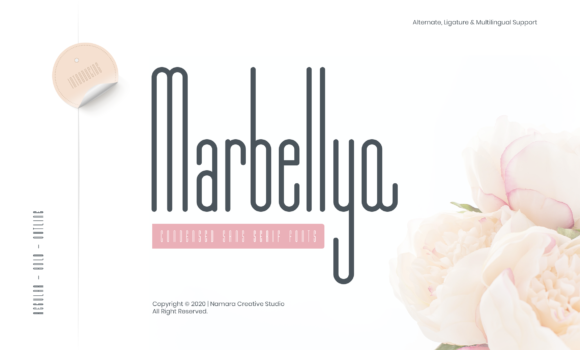
Marbellya Font Fonts Free Download
Marbellya Font – Free Download Introduction to Marbellya Font Marbellya is a simple, yet elegant sans serif font. 📸 Preview Gallery 6 images 📌 Product Name Marbellya Font 👤 Author namaracreativestudio 📂 Category Explore ⬇️ Download Marbellya Font FREE Free